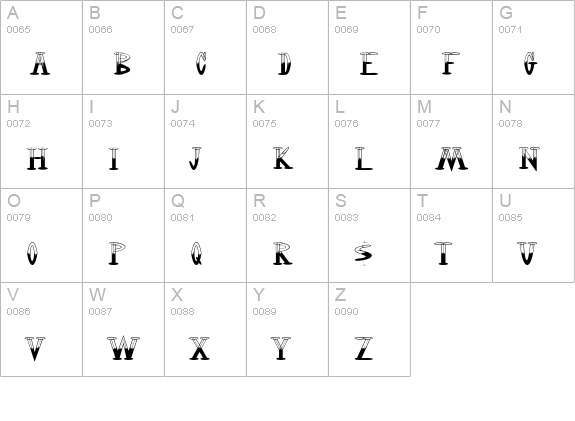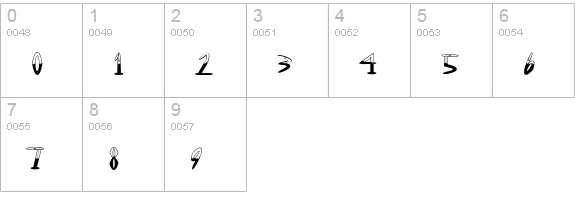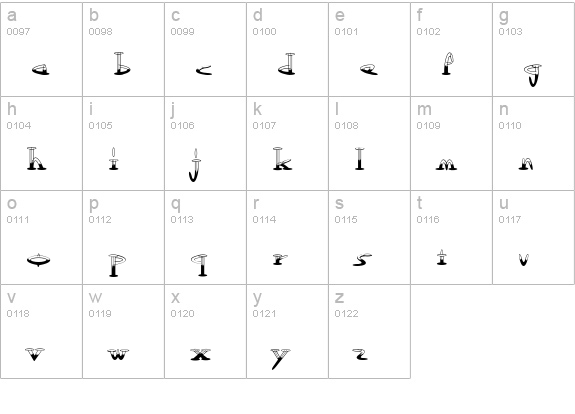
OutwestHalfFull Font Details
OutwestHalfFull font is a charming and versatile typeface that exudes a sense of adventure and creativity. With its unique blend of rugged and modern elements, this font is perfect for adding a touch of western flair to your designs. The bold lines and distinctive serifs give OutwestHalfFull a strong presence that commands attention while still maintaining a sense of approachability. This font is freely available to download at FontsMarket.com, making it easily accessible for all your design needs. Whether you're working on a poster, logo, or branding project, OutwestHalfFull is sure to make a lasting impression. Embrace the spirit of the wild west with this dynamic and eye-catching font that will bring your designs to life.